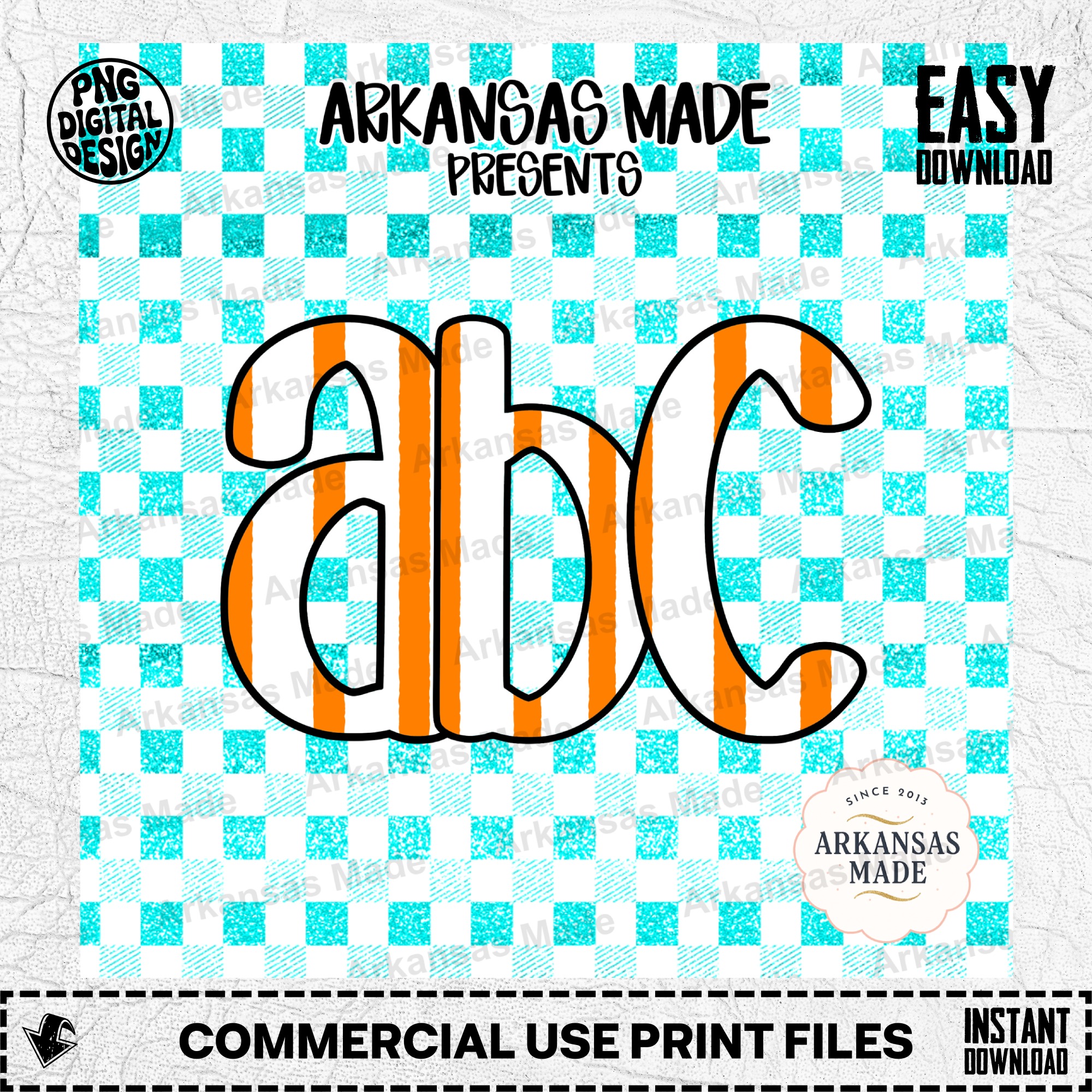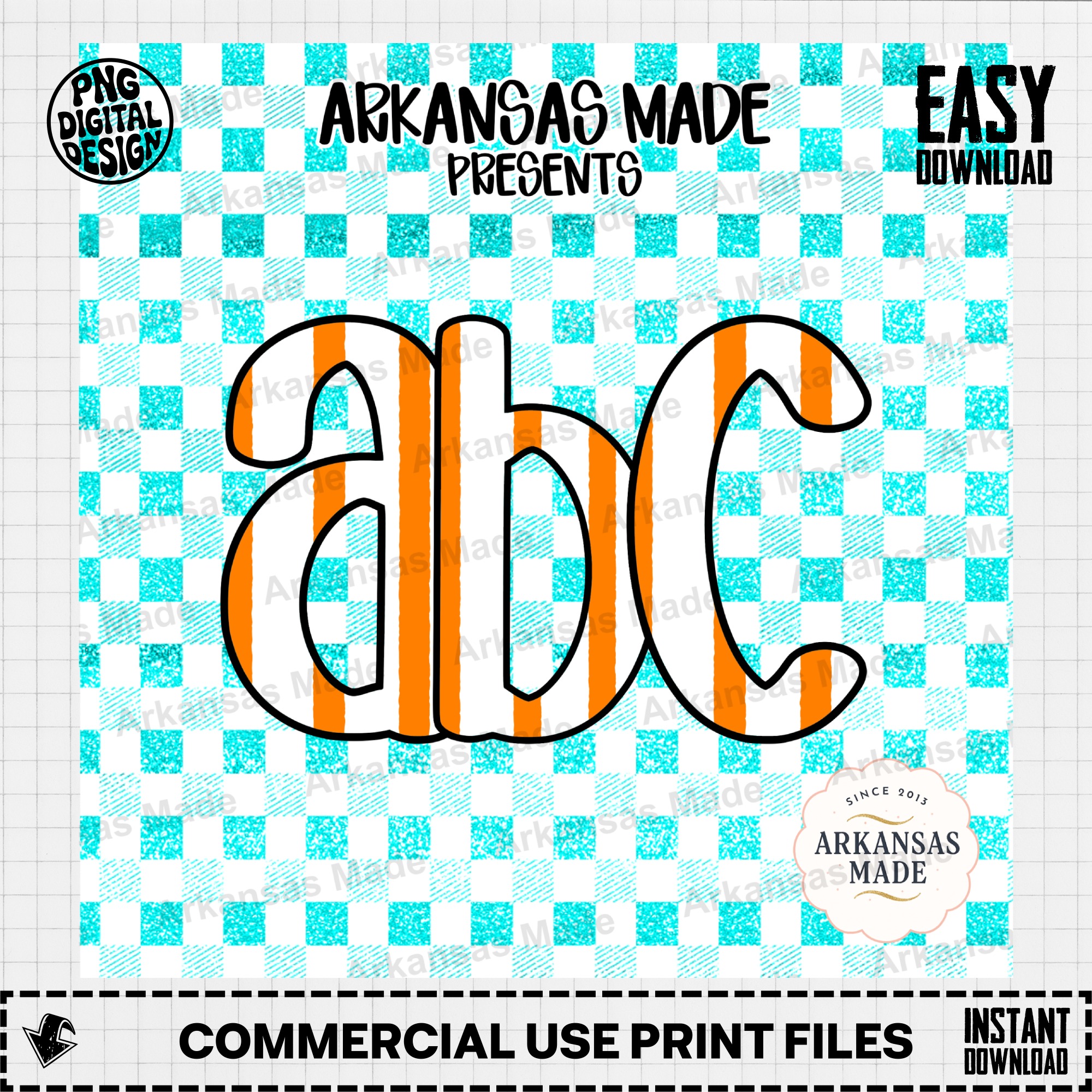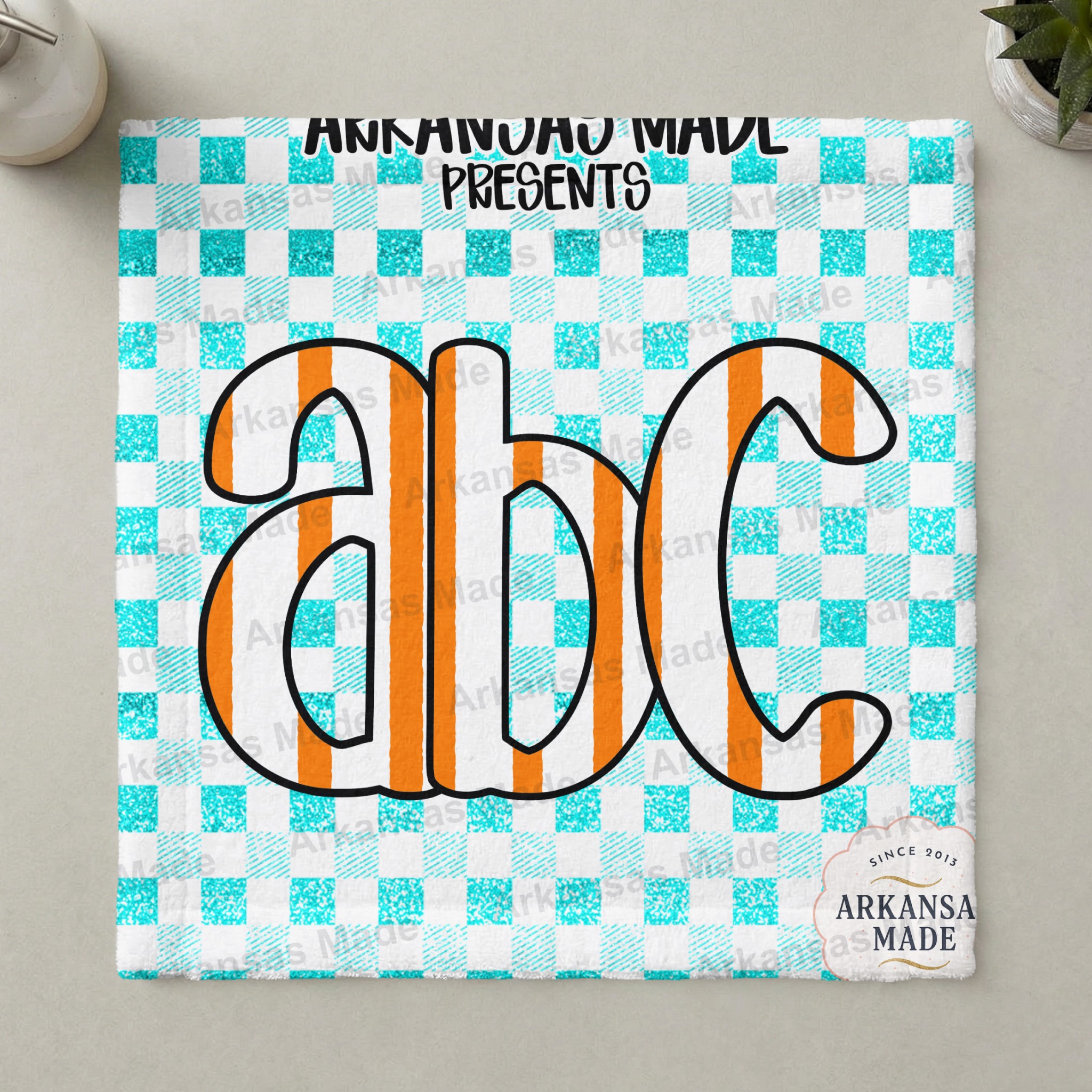
Get creative with this vibrant Orange Striped Digital Alpha Set! Featuring faux teal glitter buffalo check, perfect for unique crafting projects and designs. This playful and modern ABC PNG font set brings a bold touch to any project, blending rustic charm with a hint of glam. Ideal for DIY enthusiasts, educators, parents, and small business owners looking to personalize t-shirts, mugs, party invitations, classroom decor, or nursery art. Elevate your digital designs and create memorable, custom gifts for birthdays, baby showers, or just because.